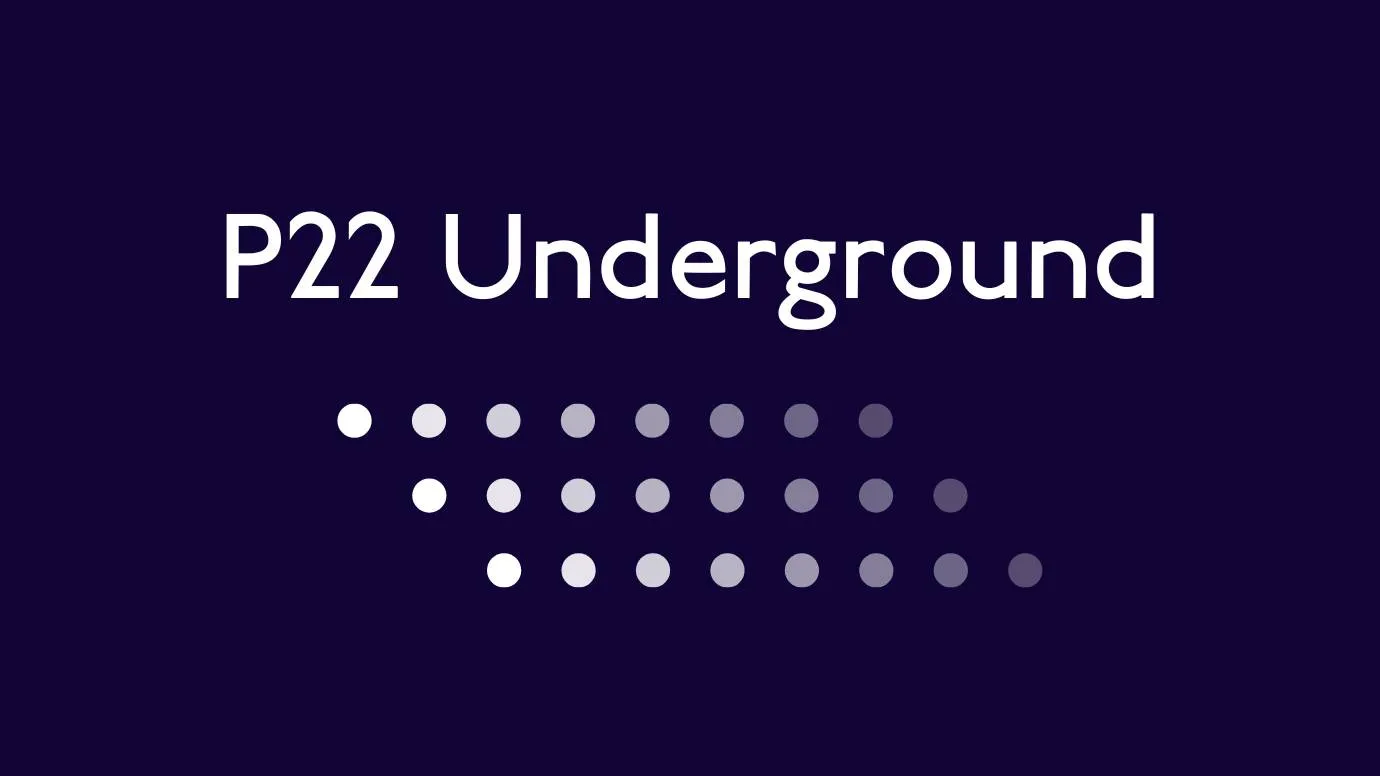
P22 Underground Font Family is a sans serif typeface that is named P22 Underground font and comes in a big set of styles from thin to thin small caps. This conspicuous typeface was designed by Edward Johnston, Paul D. Hunt, and Richard Kegler.
Each style supports up to 253 quirky glyphs and many stylish characters. Pigiarniq Font, Cicle Font, and Campton font are the closest font to this typeface.
NameP22 Underground Font
DesignerEdward Johnston, Paul D. Hunt, Richard Kegler
FoundryP22 Type Foundry
Date Released1997